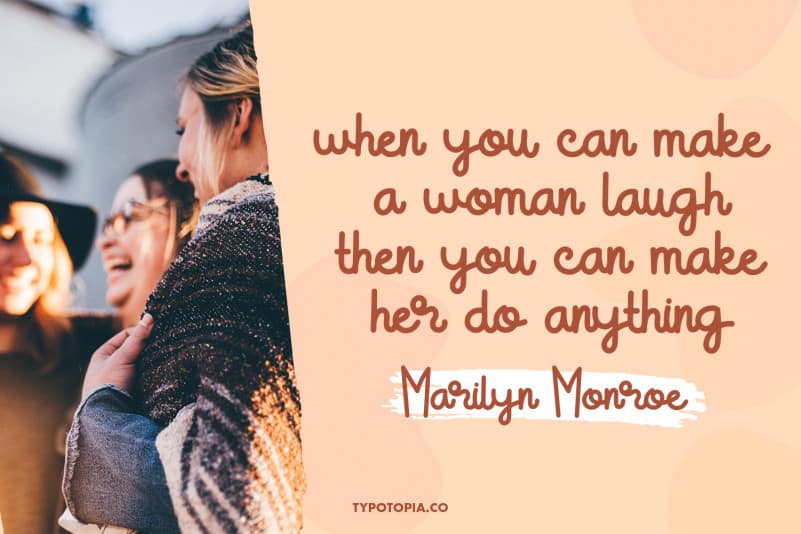
Sugarly Fancy Script Font is a Script Font with Monoline Style, this Font is perfectly made to be applied especially for logos, Poster, stationery, magazines, menus, books, invitations, greeting cards, packaging, labels, apparel, marketing, business cards, etc.